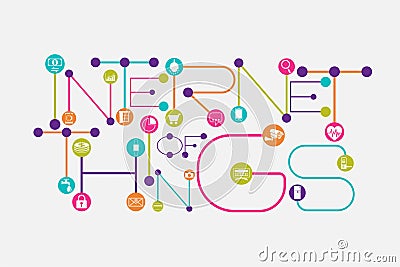
Internet Of Things Concept Using Dot And Connecting Line Font Style. Vector Illustration
Internet of Things concept using dot and connecting line font style. And gadgets inside the connecting dots.